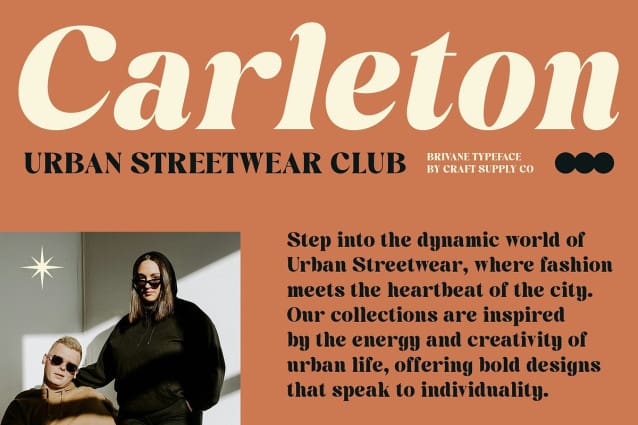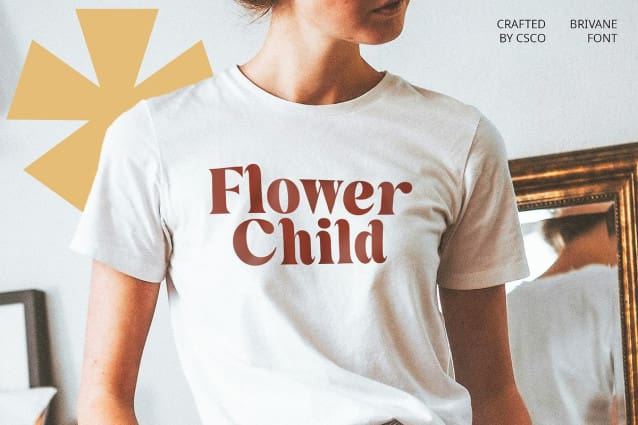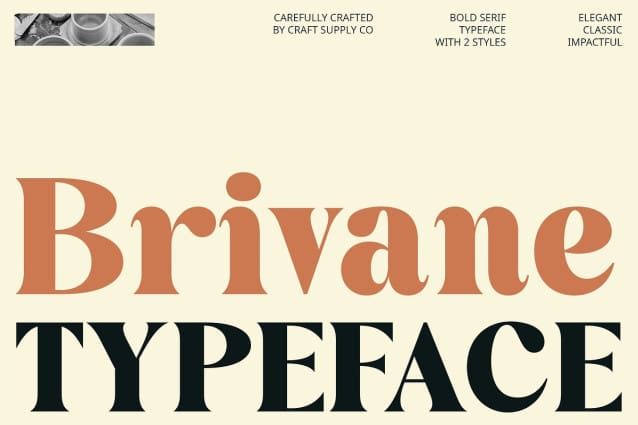
Brivane Font
Brivane Font – Bold Font is a modern serif typeface featuring thick strokes and a retro vibe. Its bold design is perfect for posters, logos, and creative projects, adding a nostalgic touch to both digital and print media.
With its strong and distinctive appearance, Brivane – Bold Font is ideal for creating eye-catching posters and memorable logos. Its bold strokes ensure your message stands out, making a powerful impact on your audience.
Brivane Font – Bold Font brings a nostalgic touch to your designs with its retro-inspired aesthetics. Whether you’re working on vintage-themed projects or simply want to infuse a hint of the past, this font provides the perfect blend of modern boldness and retro charm.
Versatile and dynamic, this font adapts seamlessly to various creative projects. From branding to editorial layouts, its thick strokes and retro vibe enhance the visual appeal of your work, ensuring a unique and captivating presentation.